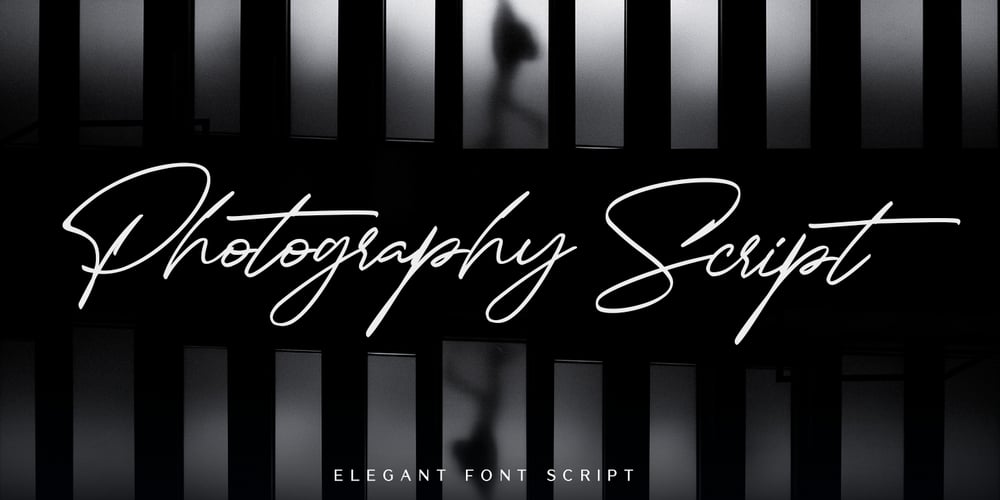
Photography Script Font Family was designed by Abdul Malik Wisnu and published by Almarkha Type. Photography Script contains 2 styles and family package options. Photography Script – a handwritten script font with a signature style. This classy font is great for your creative projects such as watermark on photography, and perfect for logos & branding, photography, invitation, advertisements, product designs, stationery, wedding designs, labels, product packaging, special events or anything that need hand-writing touch. Photography Script is here to elevate your work to the highest level. Photography Script comes in 2 styles: Regular and Slant with uppercase and lowercase letters, numbers, punctuation, ligature, alternative letters and Multi-Lingual support.